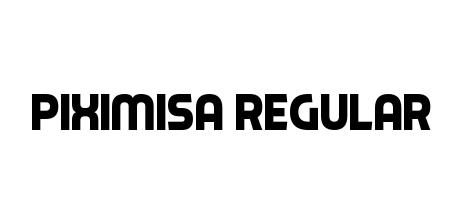
Piximisa
By Jayvee Enaguas
Piximisa Regular: A bold, sans-serif typeface, Piximisa Regular exudes a confident, almost geometric feel. Its clean lines and consistent weight create a sense of stability and modernity. The letters are compact yet clearly legible, suggesting both strength and precision. It's a font ideal for impactful headlines or branding elements needing a strong, modern aesthetic.